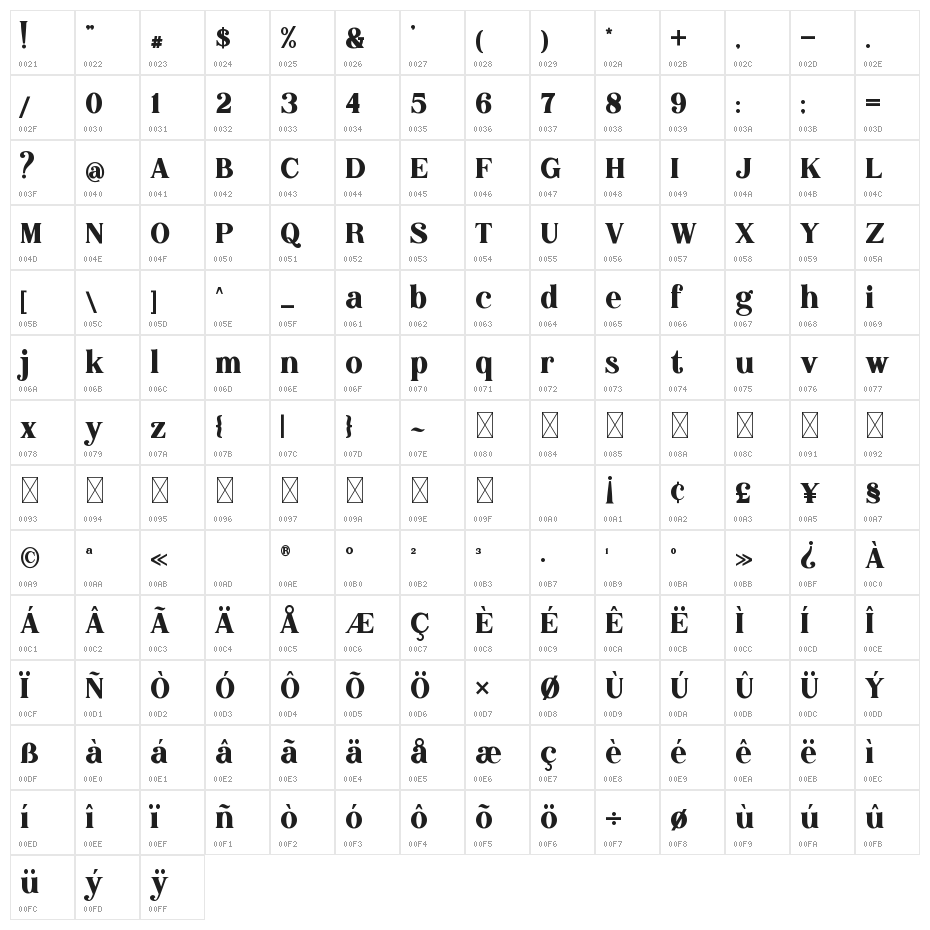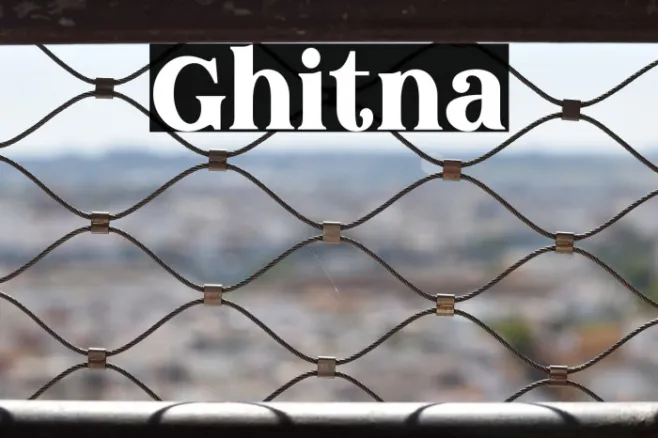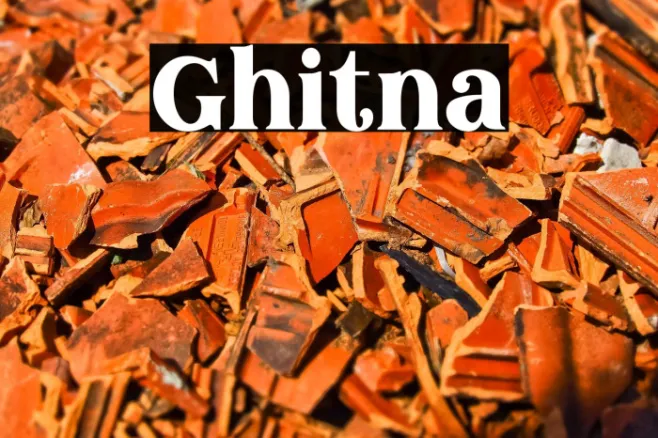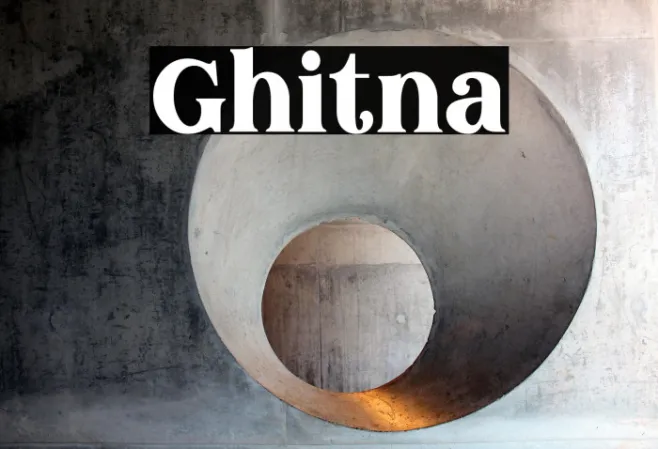
Ghitna Font
Ghitna Description
This font exhibits a classic serif style with bold, pronounced strokes and high contrast between thick and thin lines. The serifs are sharp and defined, contributing to a traditional and authoritative appearance. The uppercase letters are strong and commanding, while the lowercase letters maintain a consistent flow with rounded edges. Numerals are clear and easily distinguishable, making them suitable for both text and display purposes. The special characters are well-integrated, maintaining the overall aesthetic of the font. This typeface is versatile, offering a timeless elegance that can be adapted for various design needs.
| Proposed Projects | Ideal for editorial design, book covers, formal invitations, and branding projects that require a classic touch. |